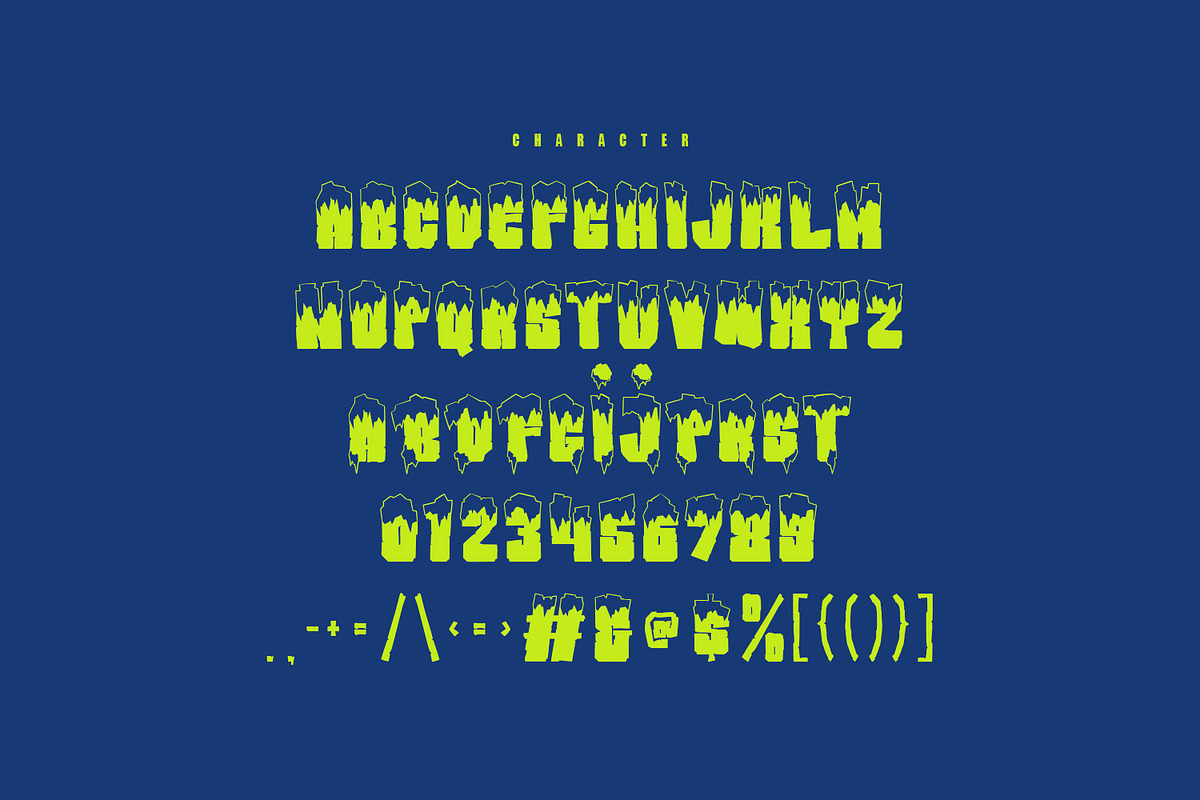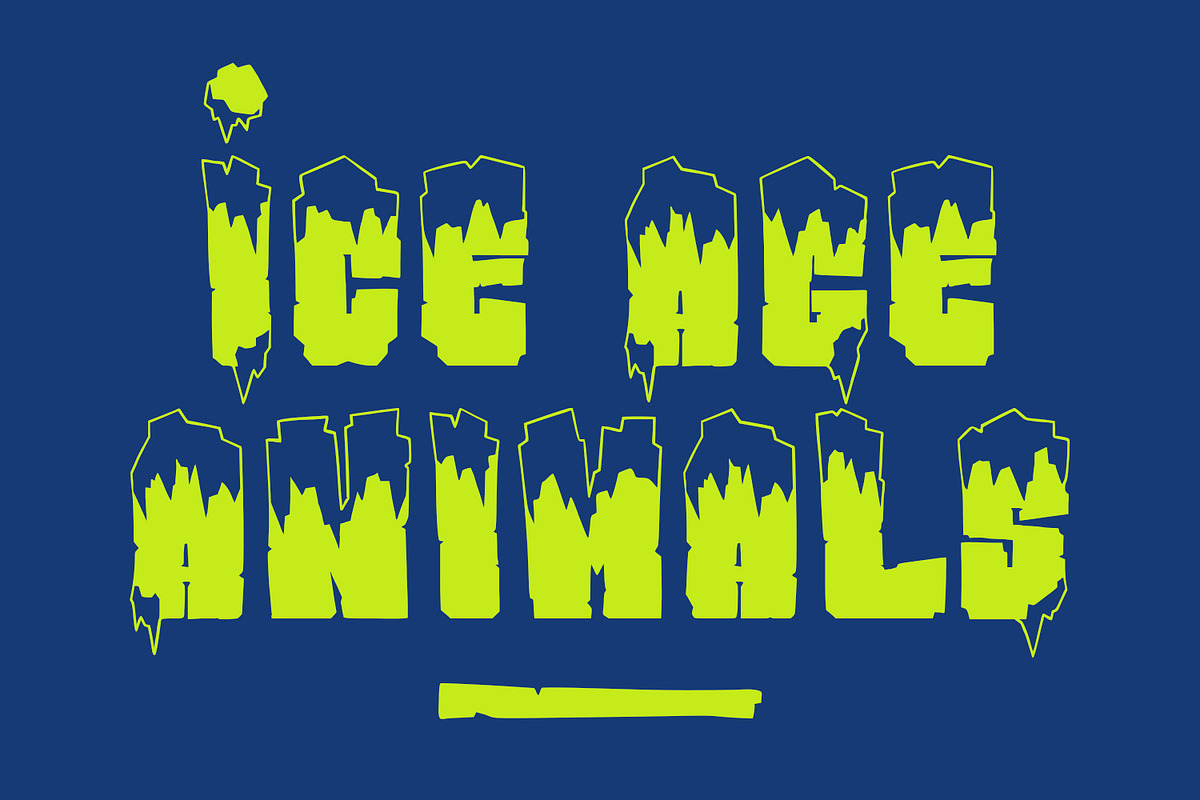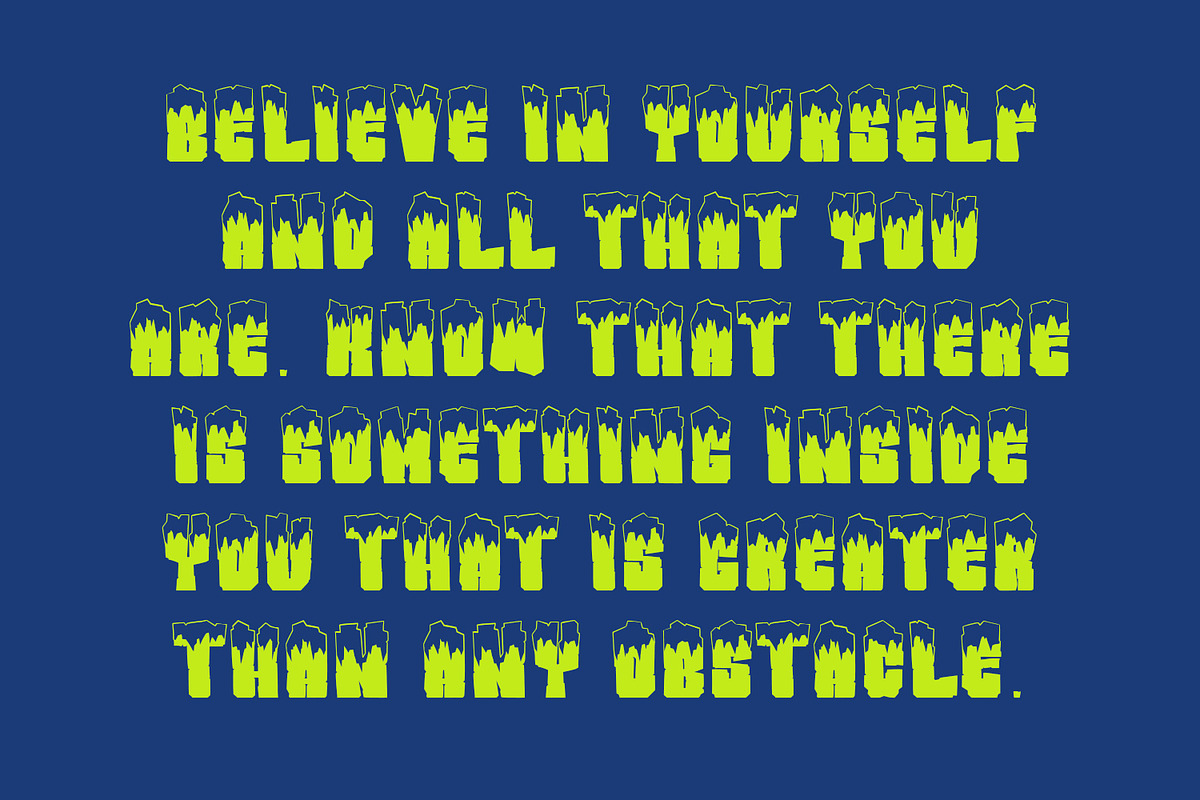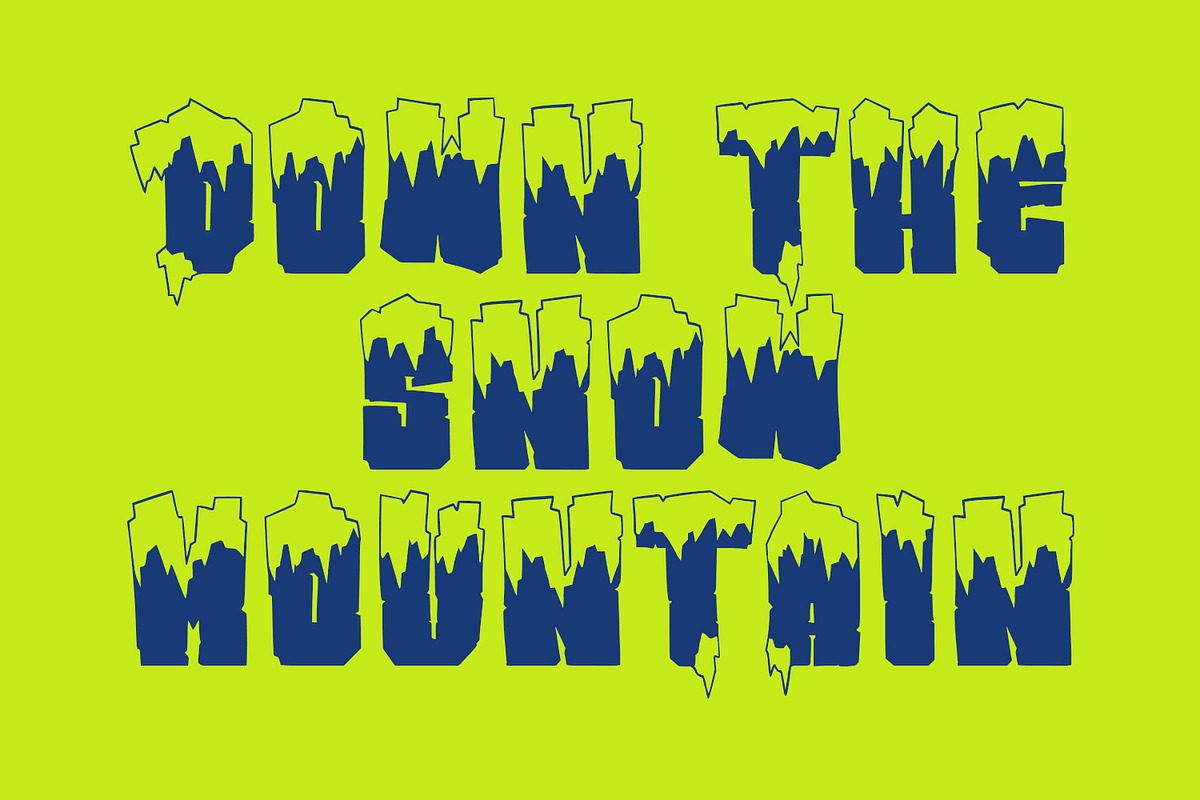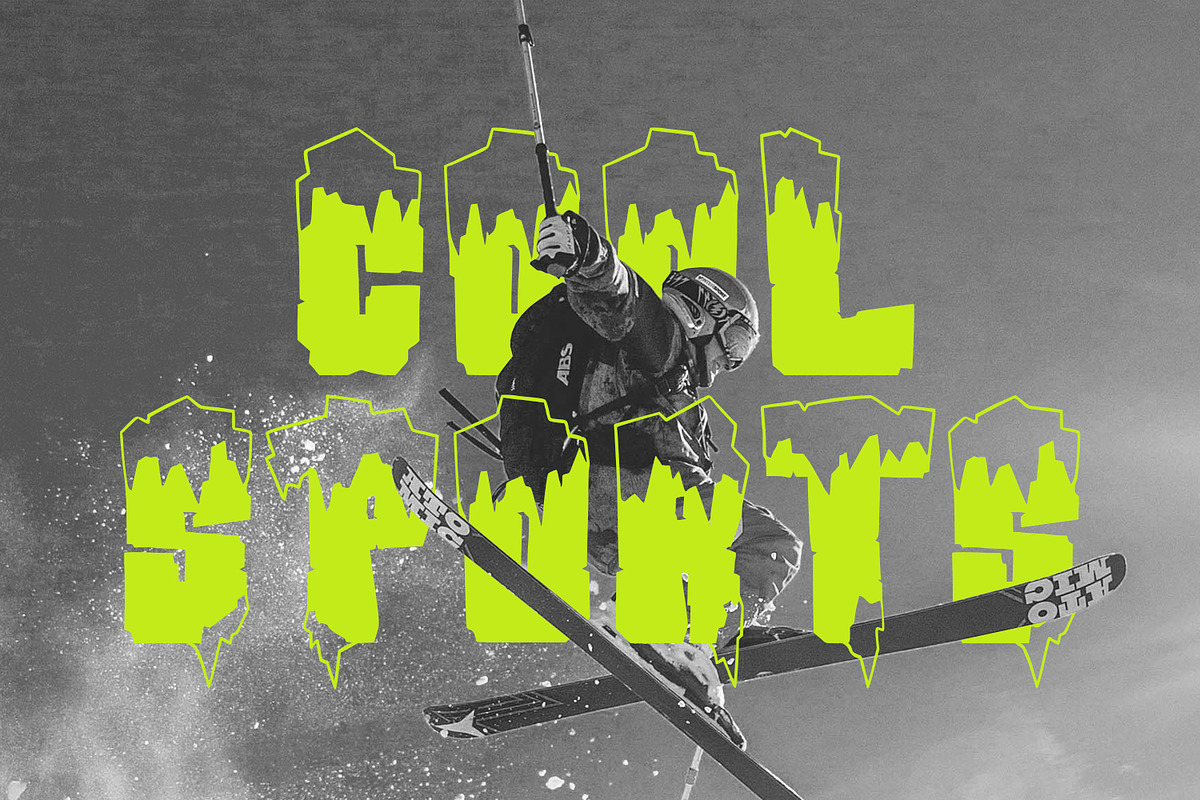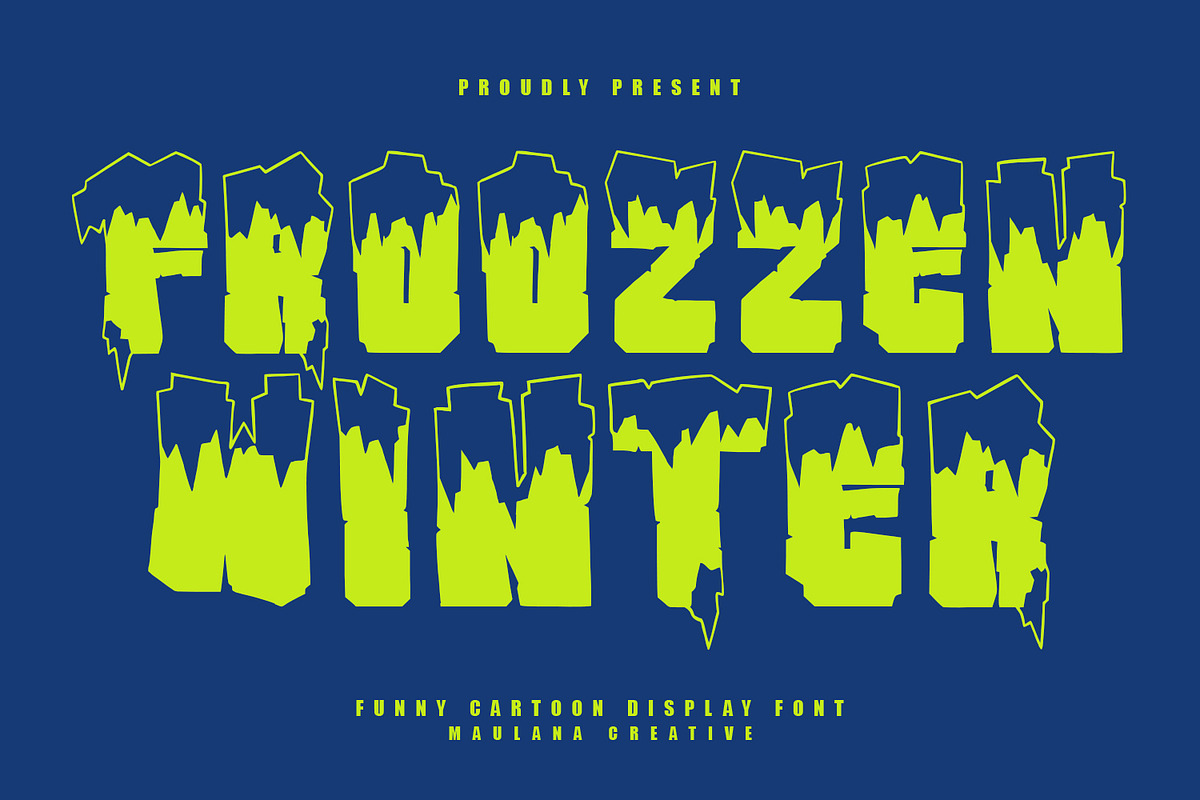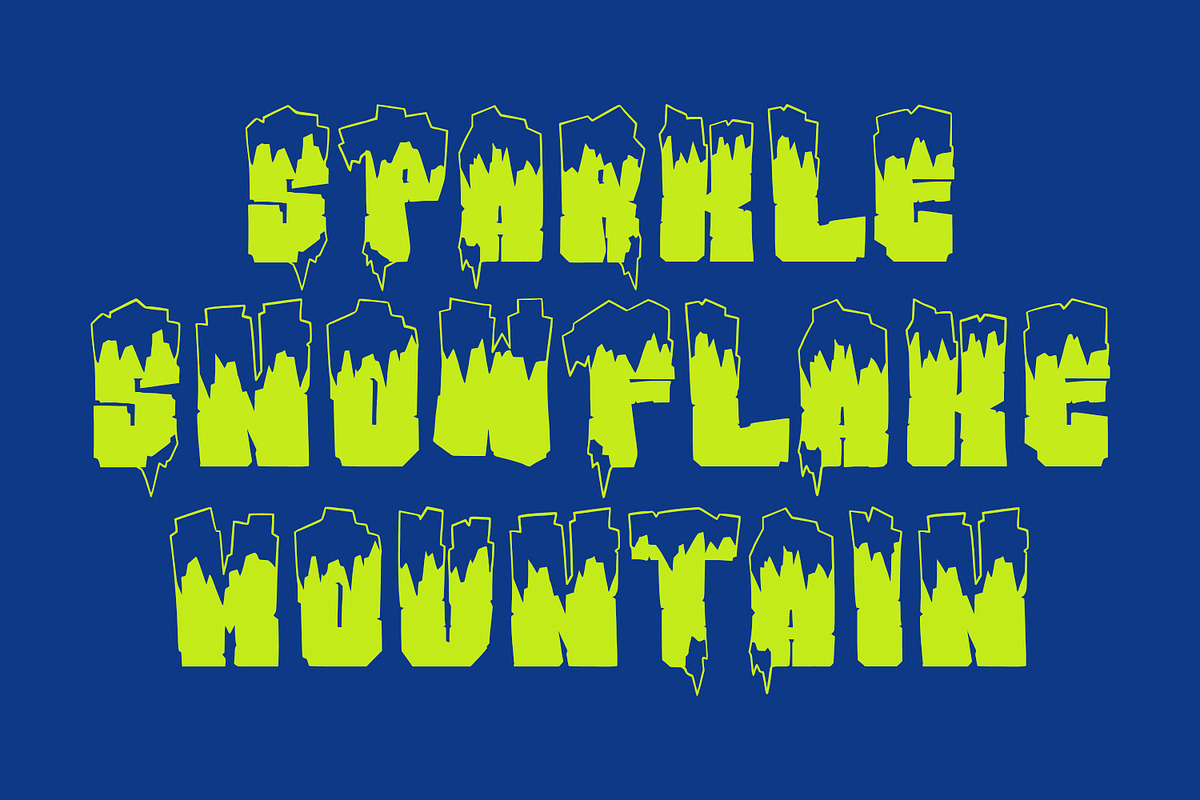
Froozzen Winter Funny Cartoon Displa
Froozzen is a winter funny handmade display font. With a ice cold stroke, cooler character with alternate to give you an extra creative work. Froozzen font support multilingual language. This font is good for logo design, Social media, Movie Titles, Books Titles, a short text even a long text letter and good for your secondary text font with sans or serif. Make a stunning work with Froozzen font.